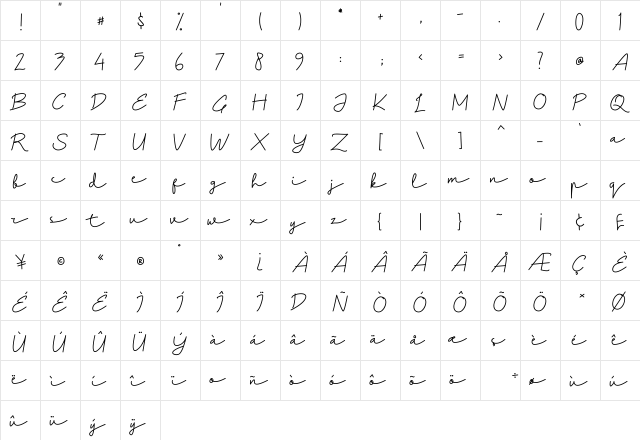
Kinan Regular
Design Context for Kinan Typeface
Kinan is a composed and adaptable typeface that performs quietly and consistently across a wide range of design contexts.